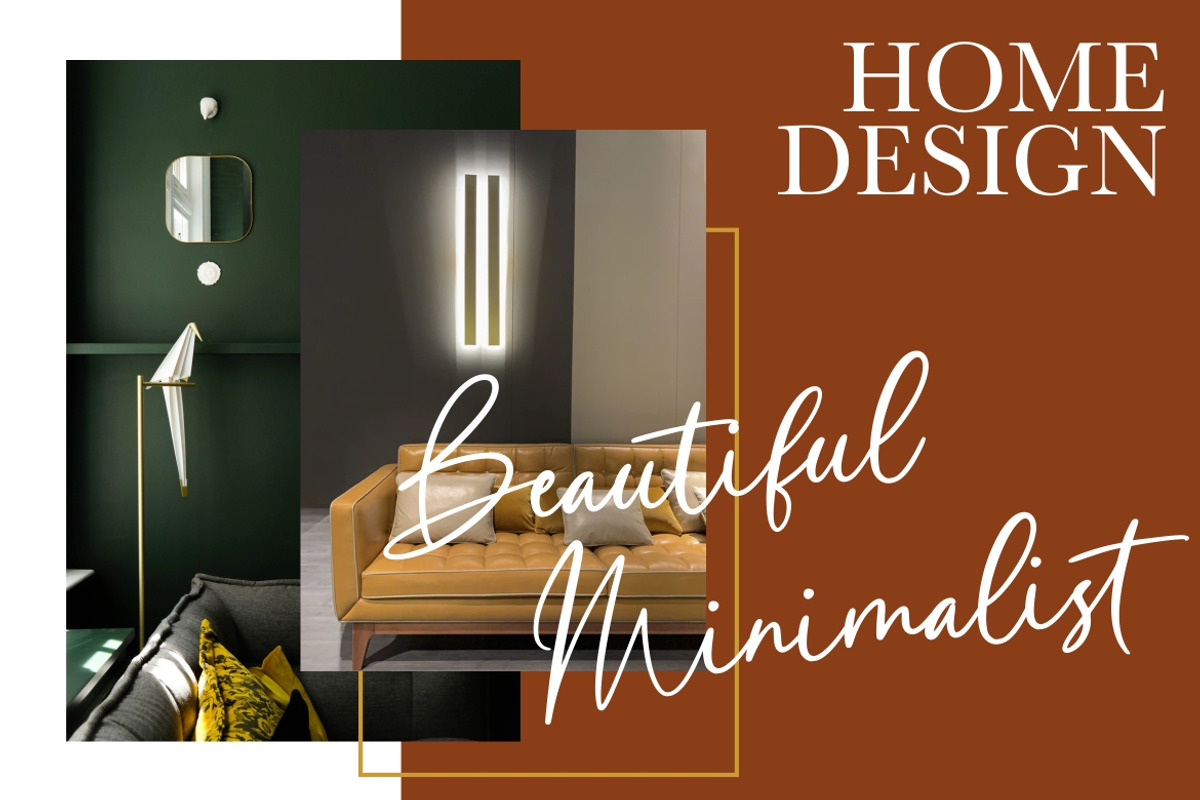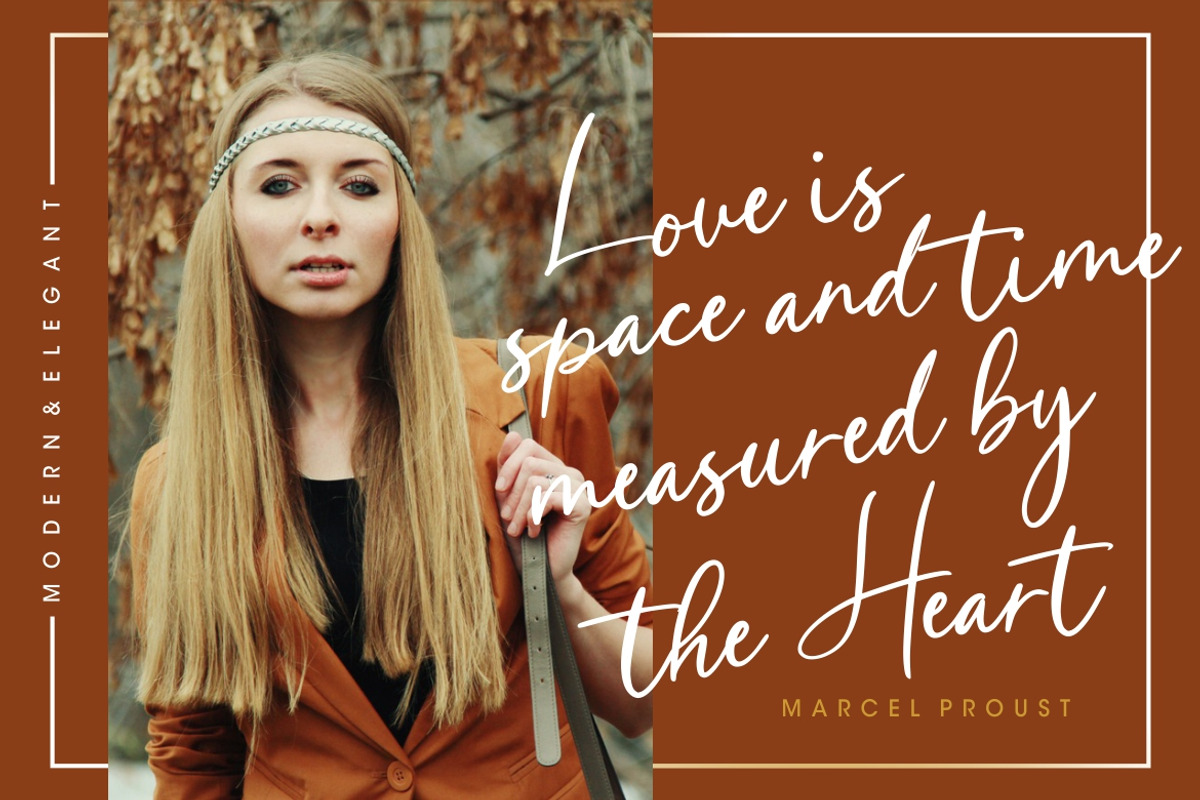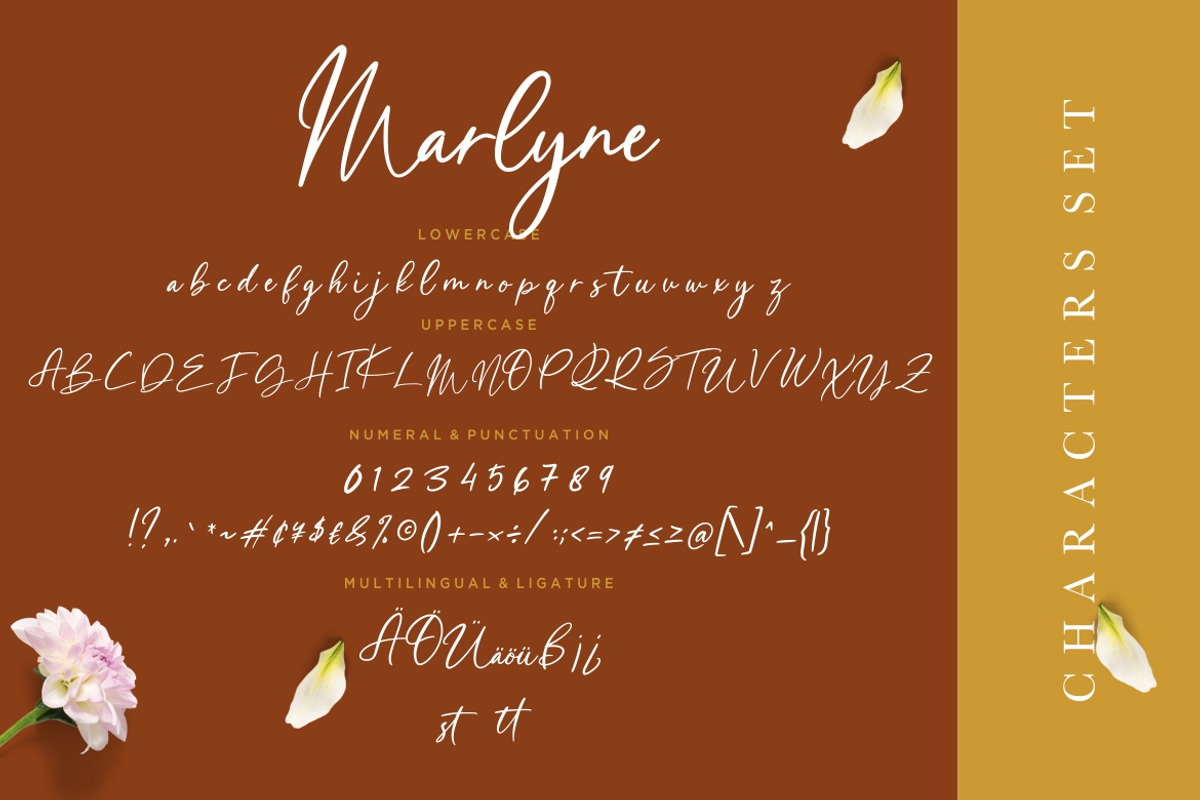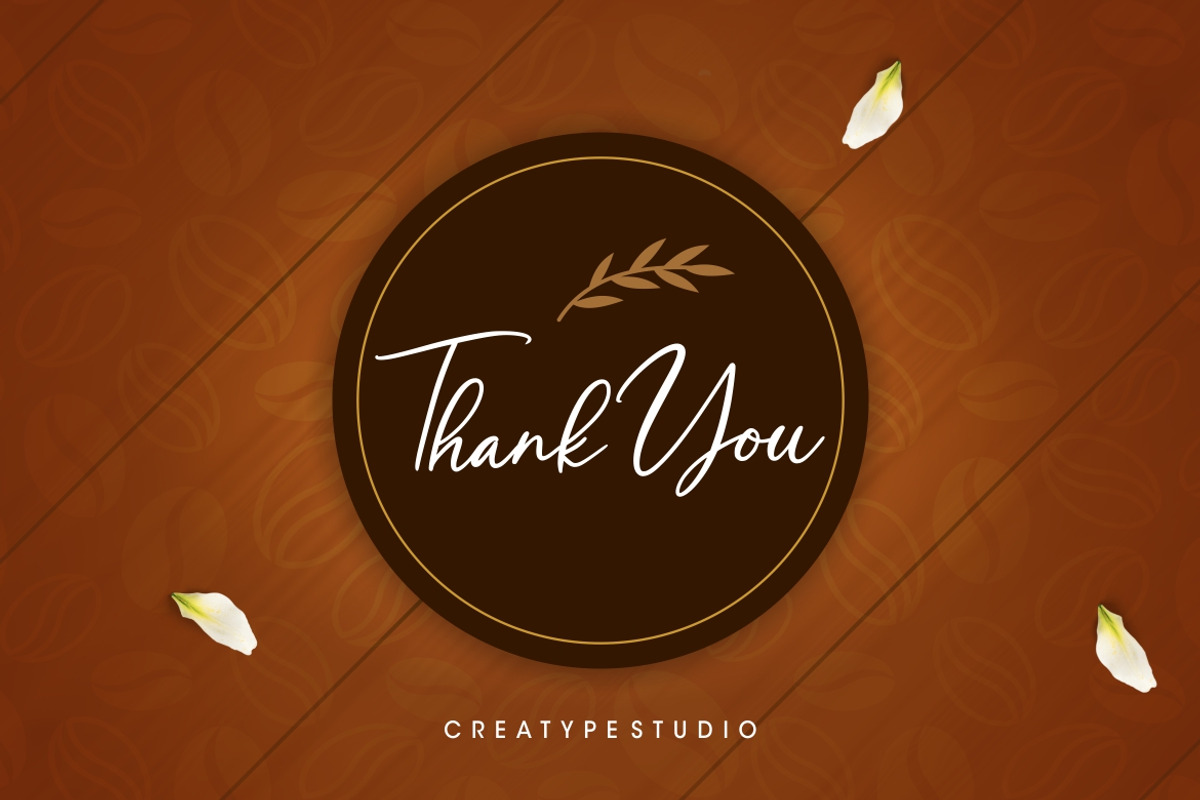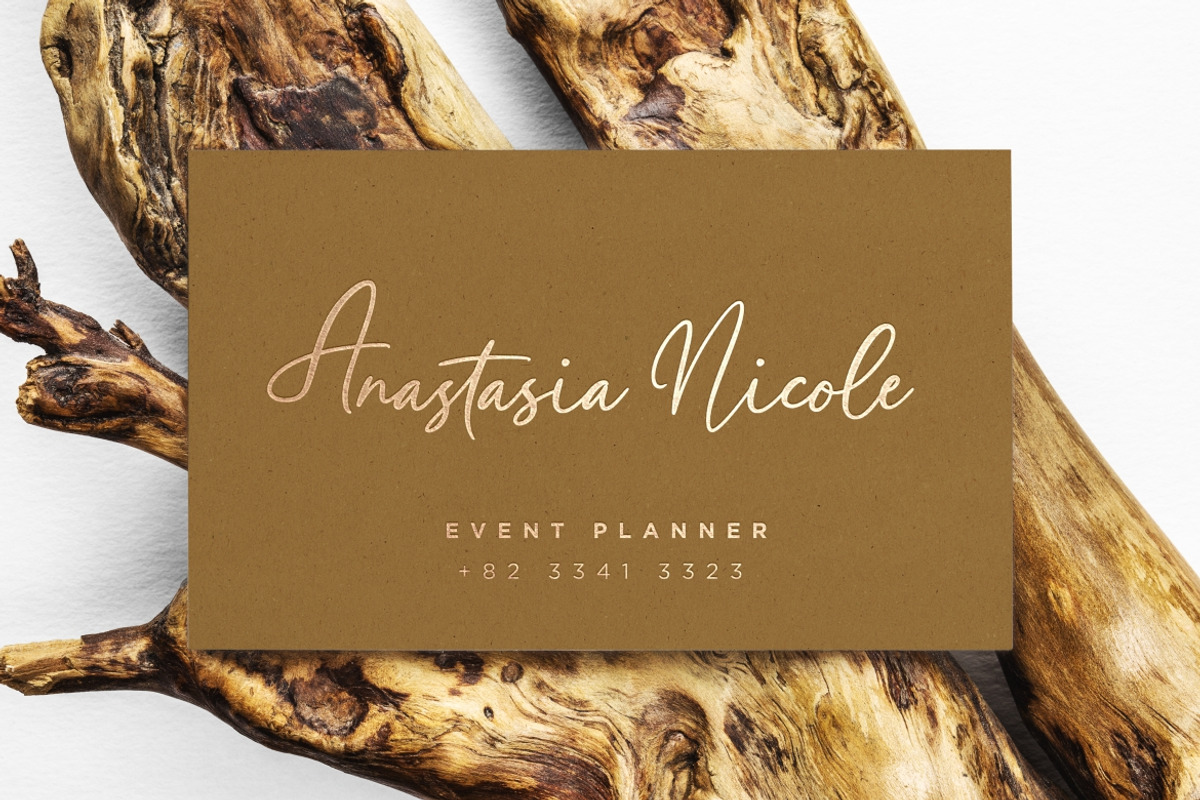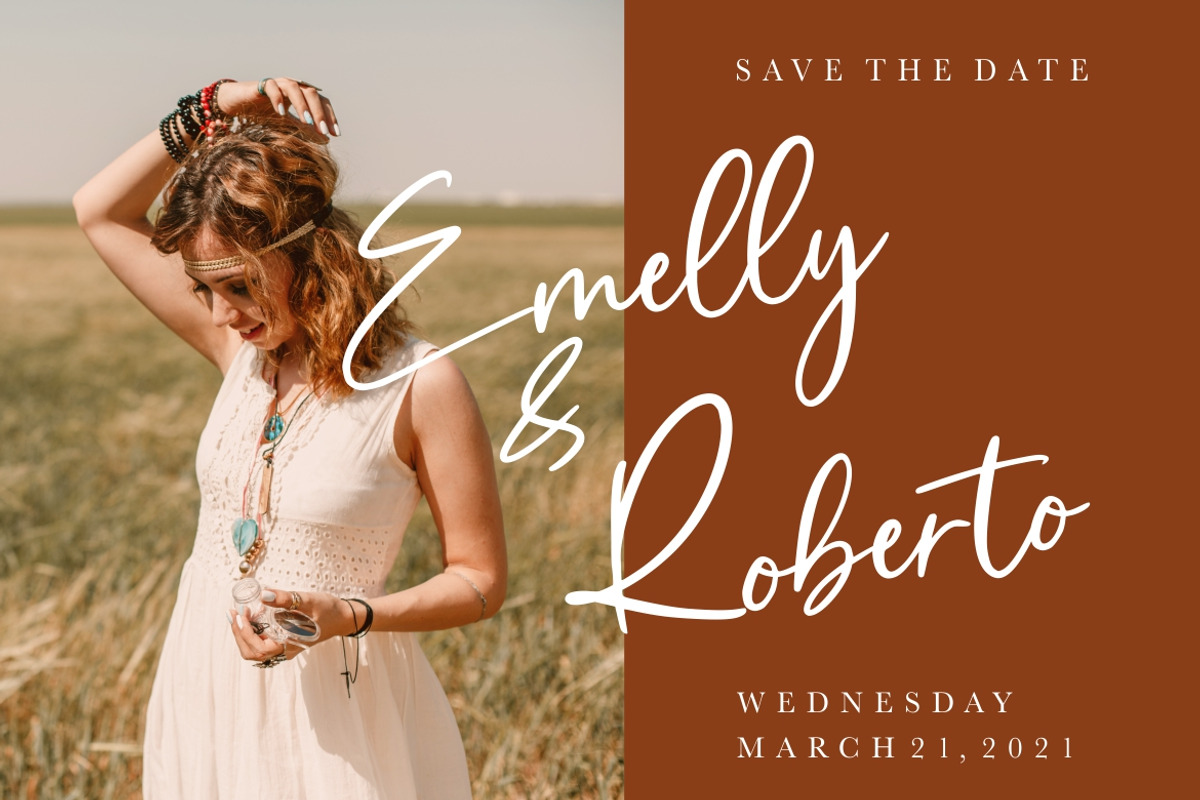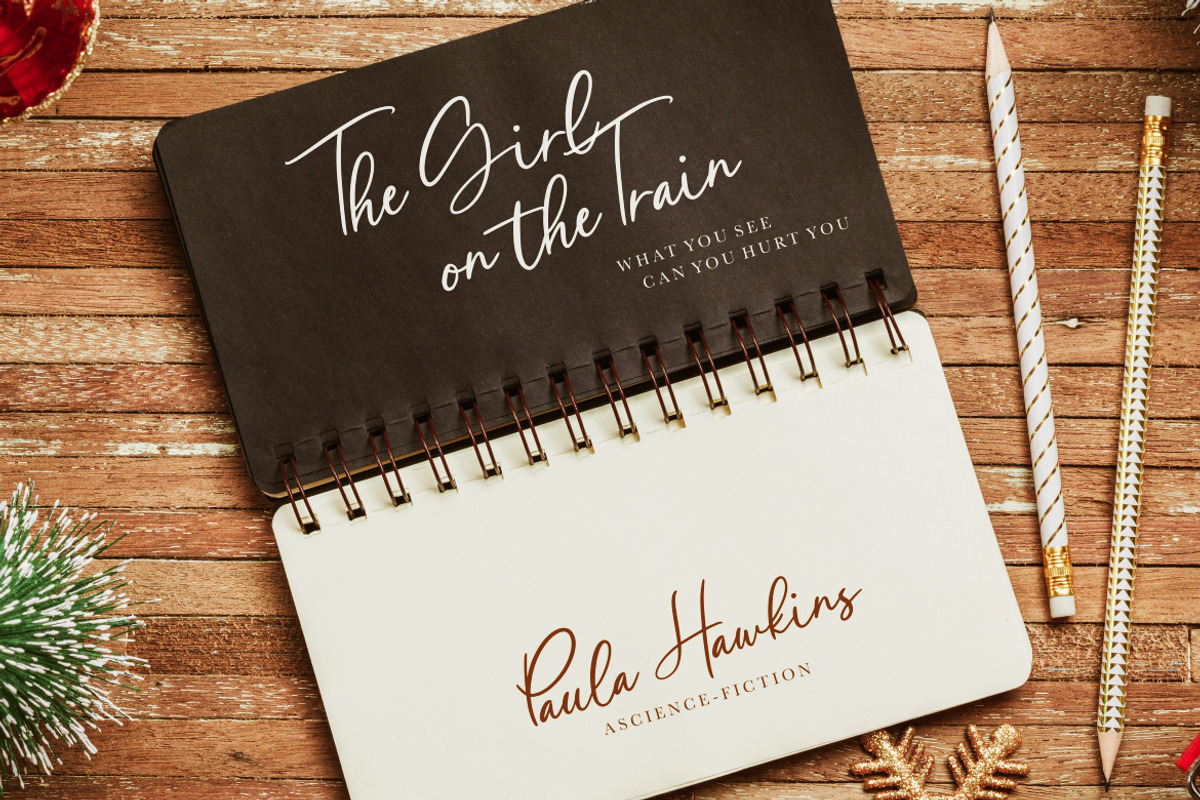
Marlyne Signature Business Font
Marlyne is signature handwritten script that perfect for your latest project.
Marlyne is perfect for branding projects, logo, wedding designs, social media posts, advertisements, product packaging, product designs, label, photography, watermark, invitation, stationery and any projects that need handwriting taste.
Why Marlyne Signature Business Font is worth a look
Marlyne Signature Business Font by Creatype Studio fits naturally into Branding, posters, packaging, typography.